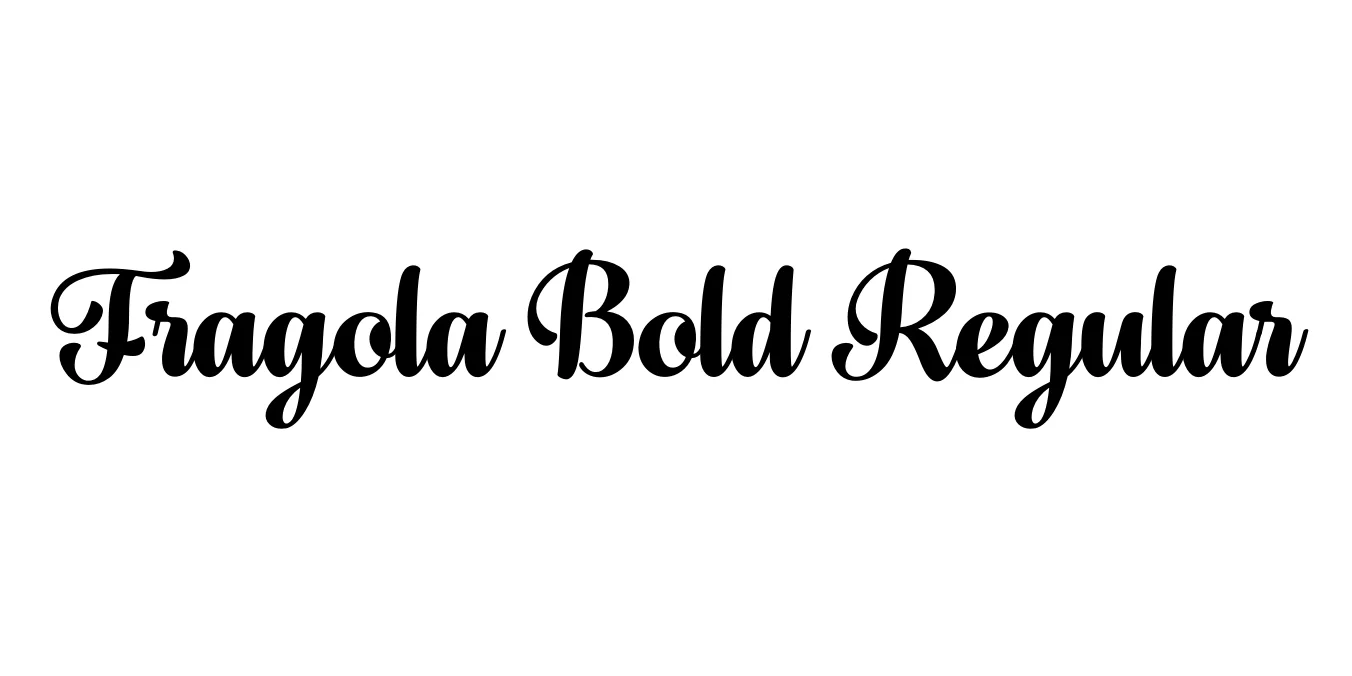
Fragola Bold Regular
Fragola is a vibrant and energetic brush script font designed by the prolific typographer Mans Greback. Characterized by its fluid, hand-drawn strokes and thick, confident lines, the Bold Regular weight offers an authentic calligraphic feel that mimics real ink. It was crafted to provide a sense of movement and spontaneity, making it a popular choice for designers who want to inject personality and warmth into their digital or print compositions.
The typeface includes a wide array of ligatures and swashes, allowing for a highly customized and natural lettering experience. Its organic texture and playful rhythm make it particularly effective in the food, beverage, and lifestyle industries. Fragola stands out for its ability to remain legible while maintaining a distinct, handcrafted aesthetic that helps brands establish a more personal connection with their audience.
Fragola Bold Regular Best Uses
Perfect for creating memorable logos and identity systems for boutique brands and cafes.
Ideal for organic food labels, artisanal products, and beverage containers.
Excellent for high-impact typography in Instagram posts, stories, and Pinterest graphics.
Great for promotional banners, flyers, and posters that require a friendly, approachable tone.